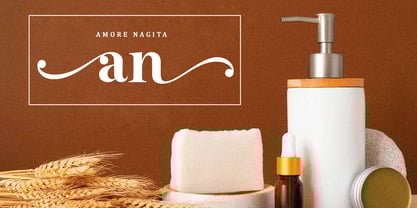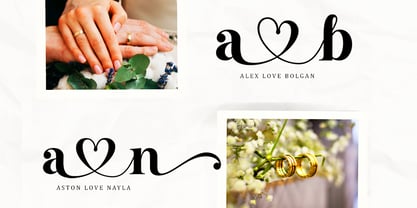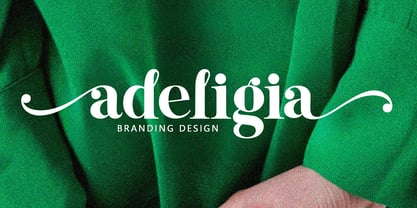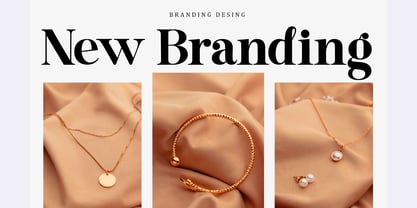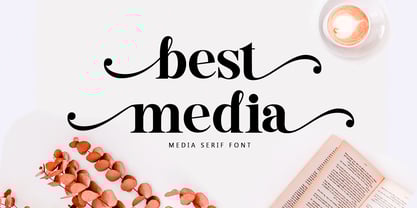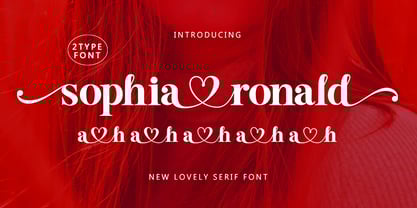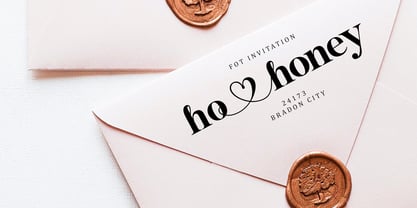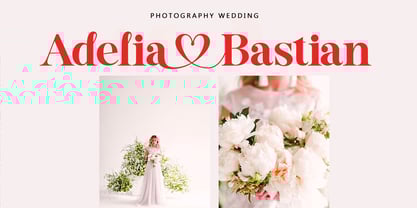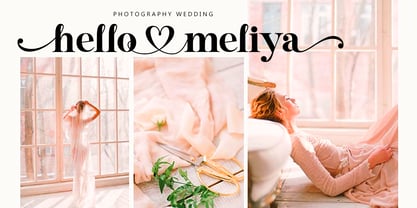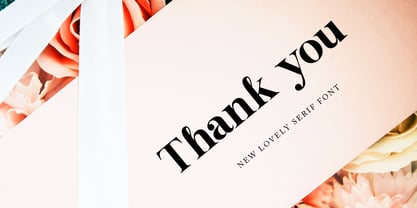
Sophia Ronald
Introducing Sophia Ronald, a stunning Serif Font that will be the center of your attention. This serif font is centered on a delicate heart for large scale key points, beautiful text moments, or eye-catching quotes.
Sophia Ronald was created to be the center of attention. With stunning contrast, organic curves, and beautiful, luxurious letters, Hello Honey is a phenomenal choice for any project, whether focused on luxury branding or typefaces. This font is perfect for many projects, for modern or even retro vintage designs, branding, logos, crafts, stickers, sublimation, wedding invitations, and more. This font is suitable for a variety of projects such as logos, brands, magazines, signage, fashion, and more.
Contains a complete set of:
- Sophia Ronald Regular
- Sophia Ronald Italic
heart styles centered and beginning and end
Upper case
Lowercase
Alternatives
Ligatures
Numbers
Multilingual support.